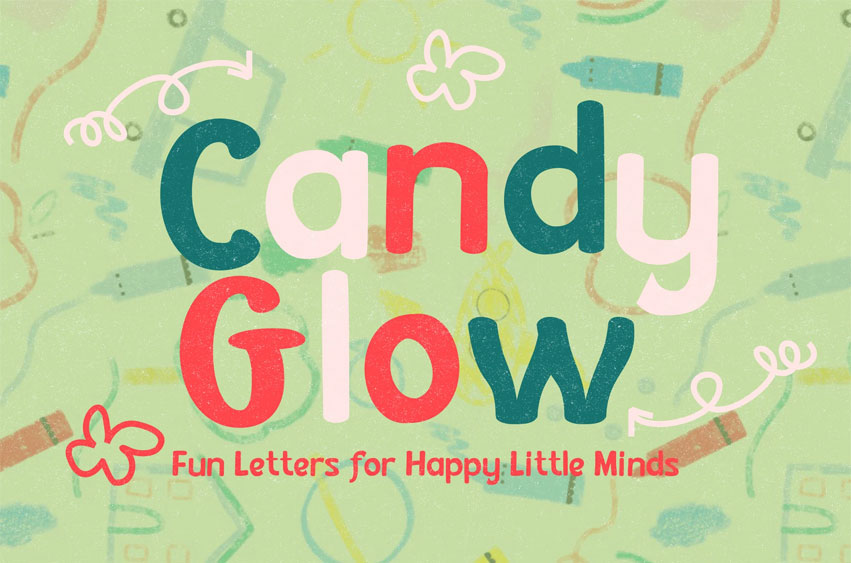
Candyglow Font
Candyglow Font is a sweet and cheerful kids-themed font designed to light up your creative projects! With soft, rounded letterforms and a candy-inspired look, Candyglow brings a fun and friendly vibe to any design.
• Educational posters
• Children’s book covers
• Toy packaging
• Birthday invitations
• Kids’ apps and games
Bring a joyful, colorful spirit to your designs — let Candyglow turn every word into a playful adventure!